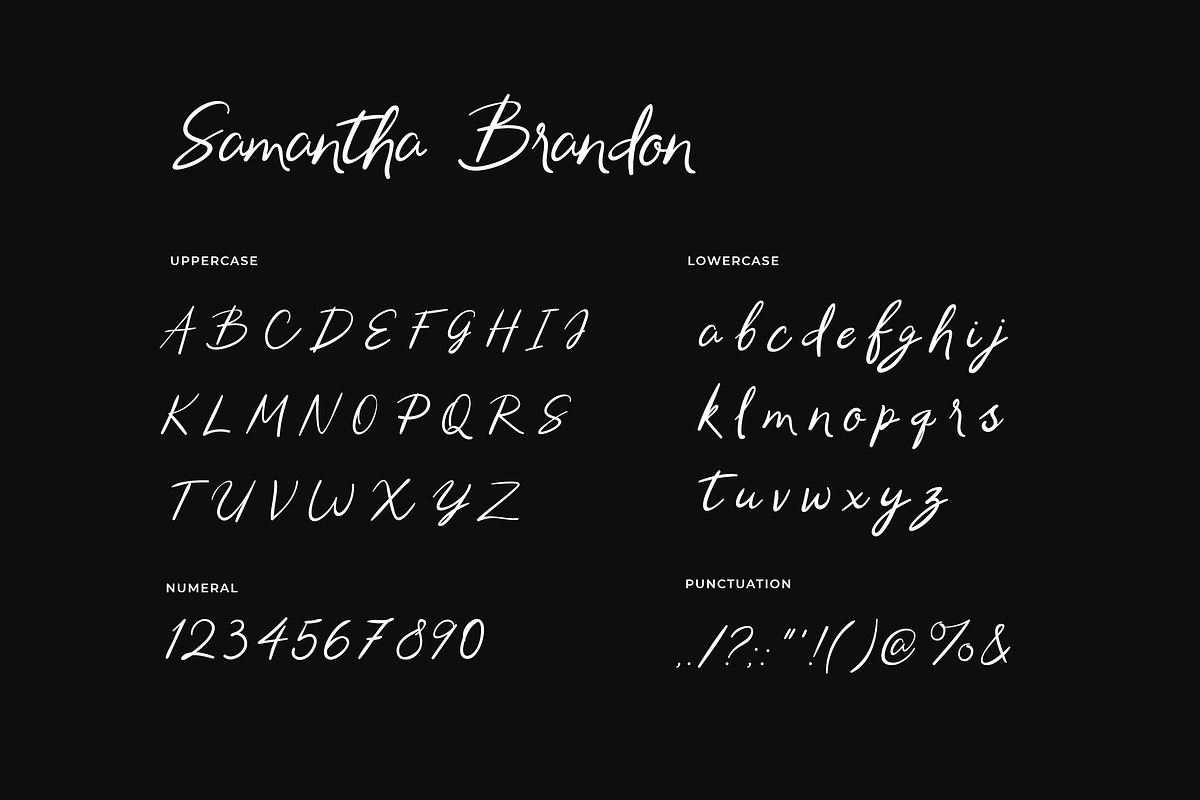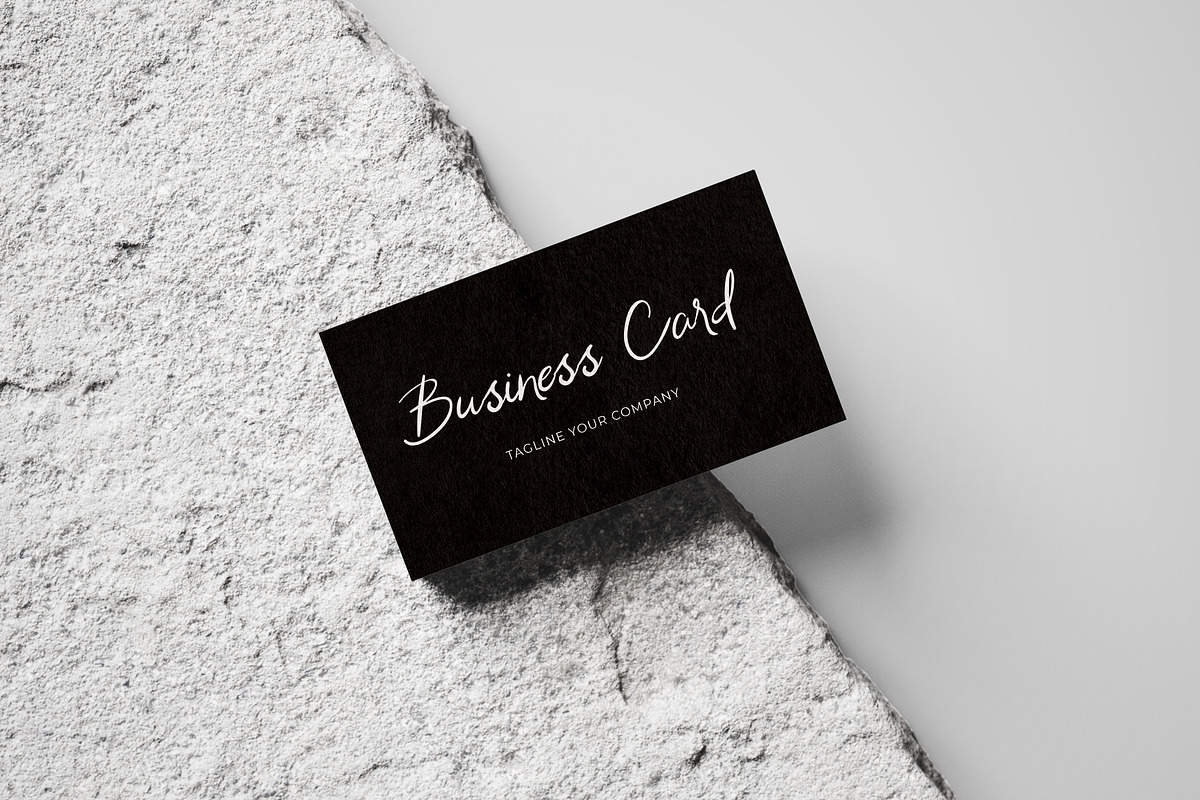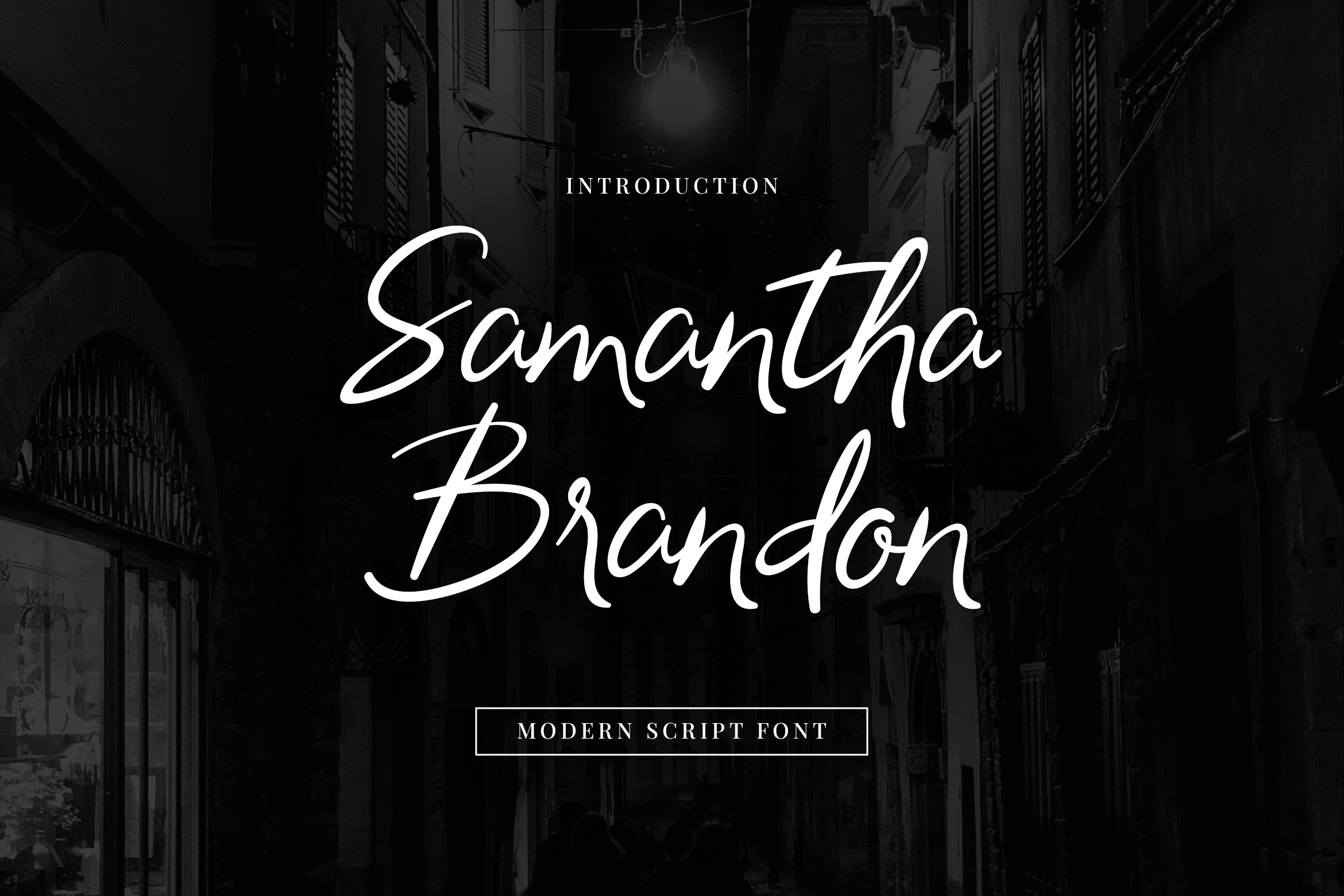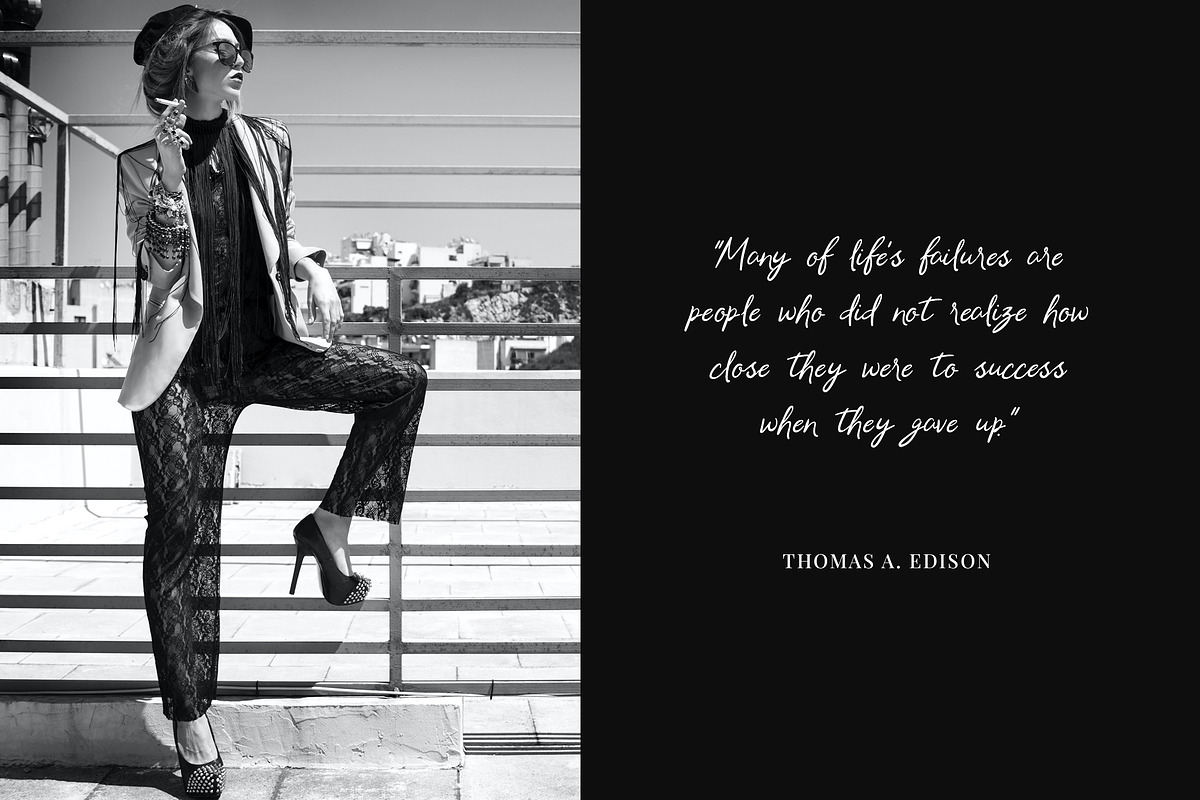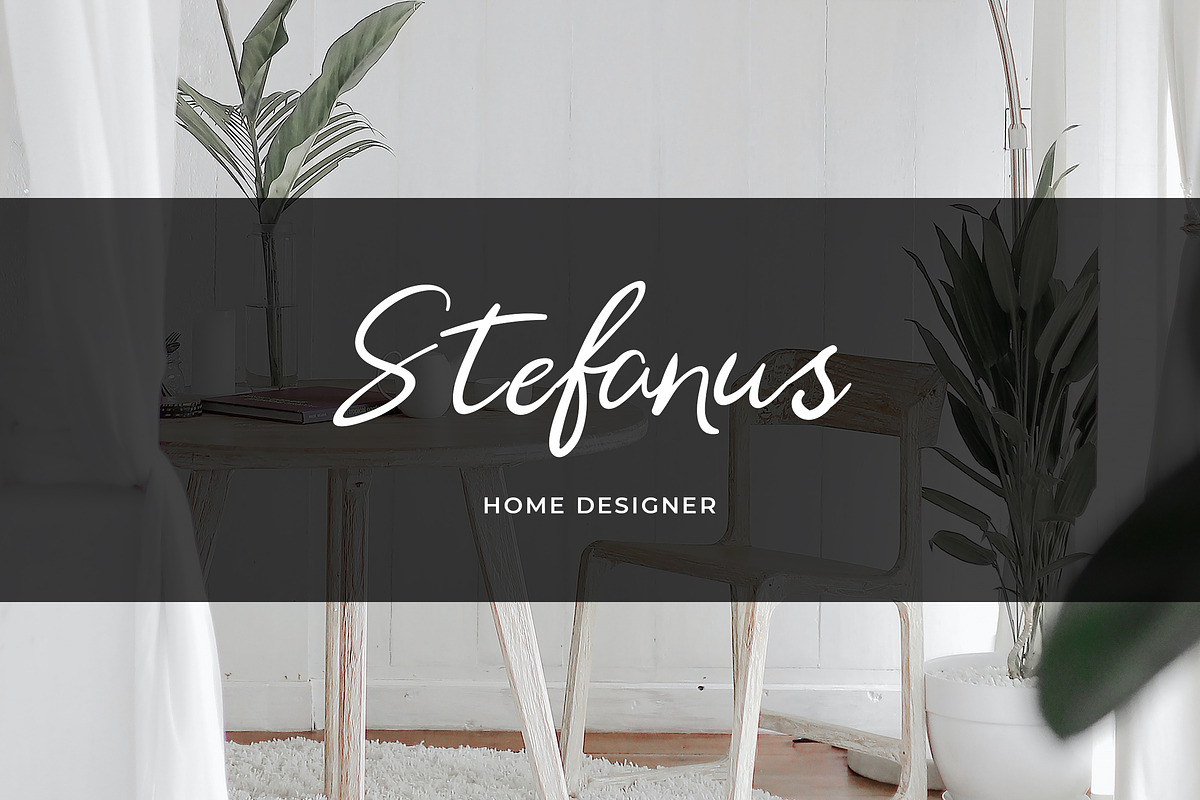
Samantha Brandon Handwritten Font
Samantha Brandon is unique handwritten font with a personal charm. With quick dry strokes and also has vintage display font. Can make it easier to convey the message in your design. Use for awesome display, labeling, clothing, movie sceen, poster, movie title, gigs, album covers, logos, and much more. It's also could be good for both fun and semi-formal text.